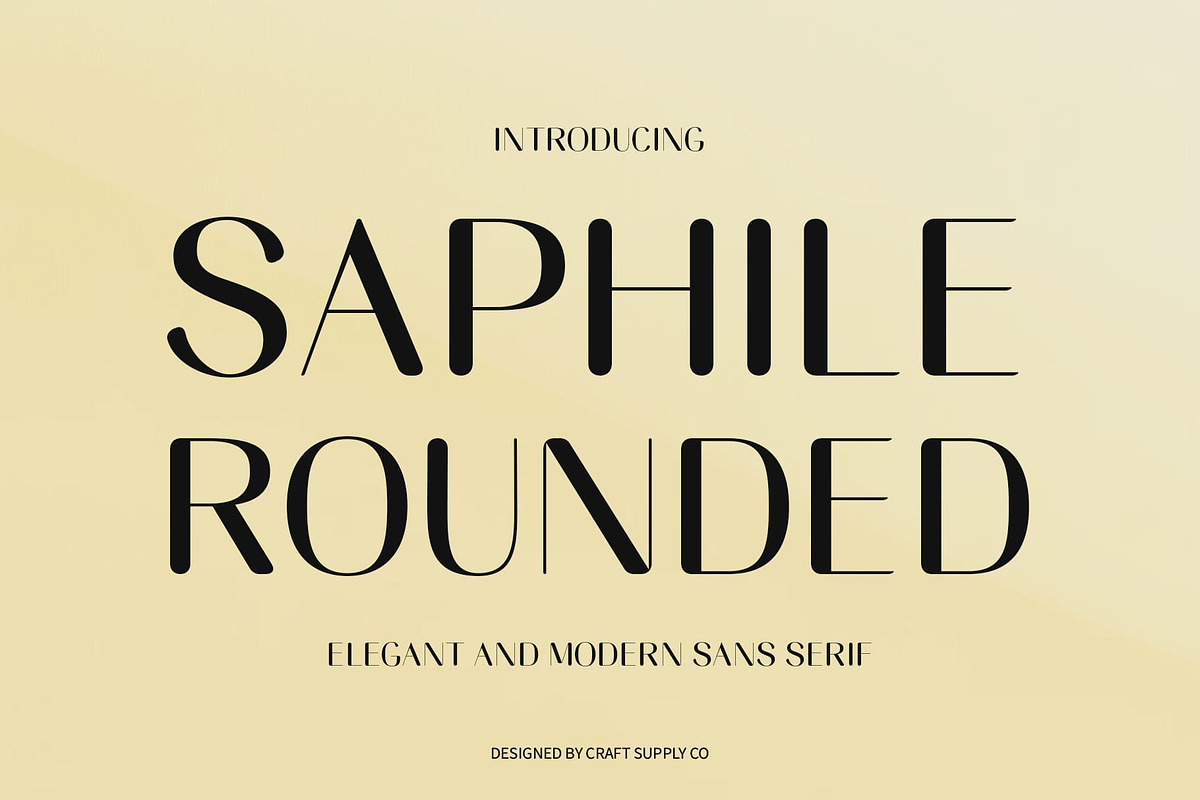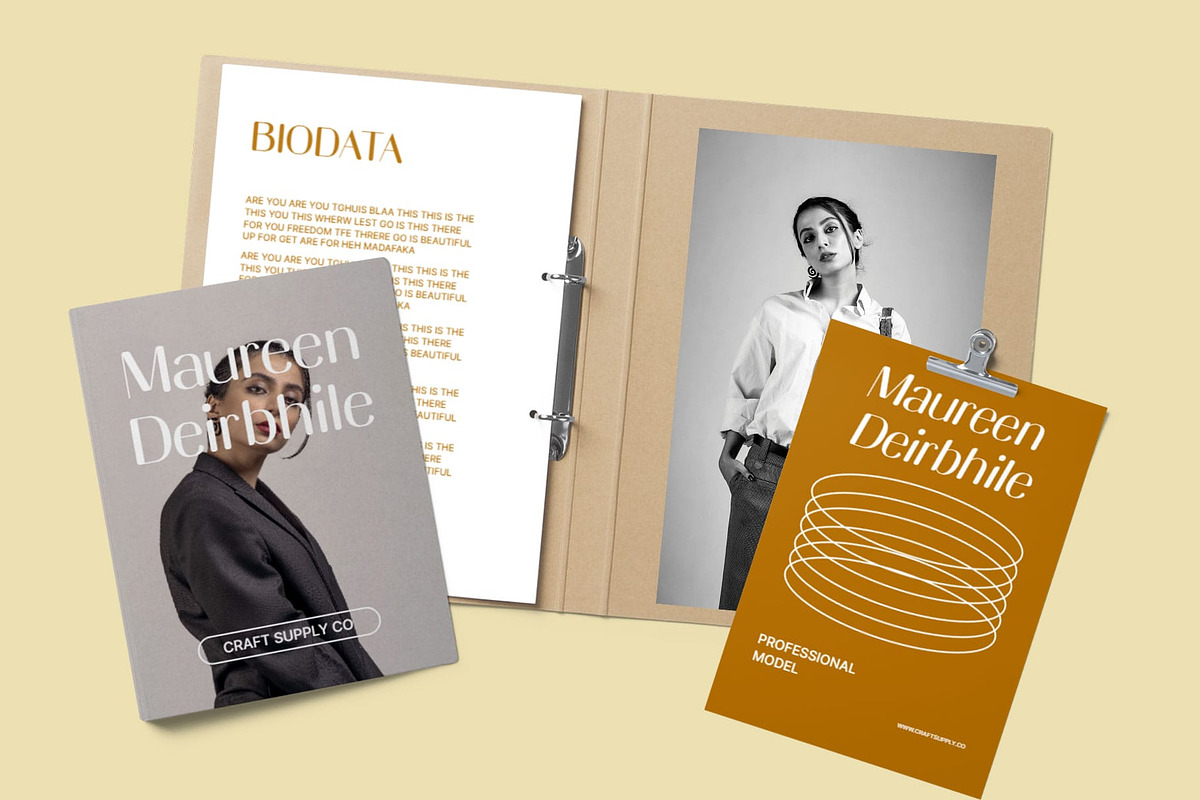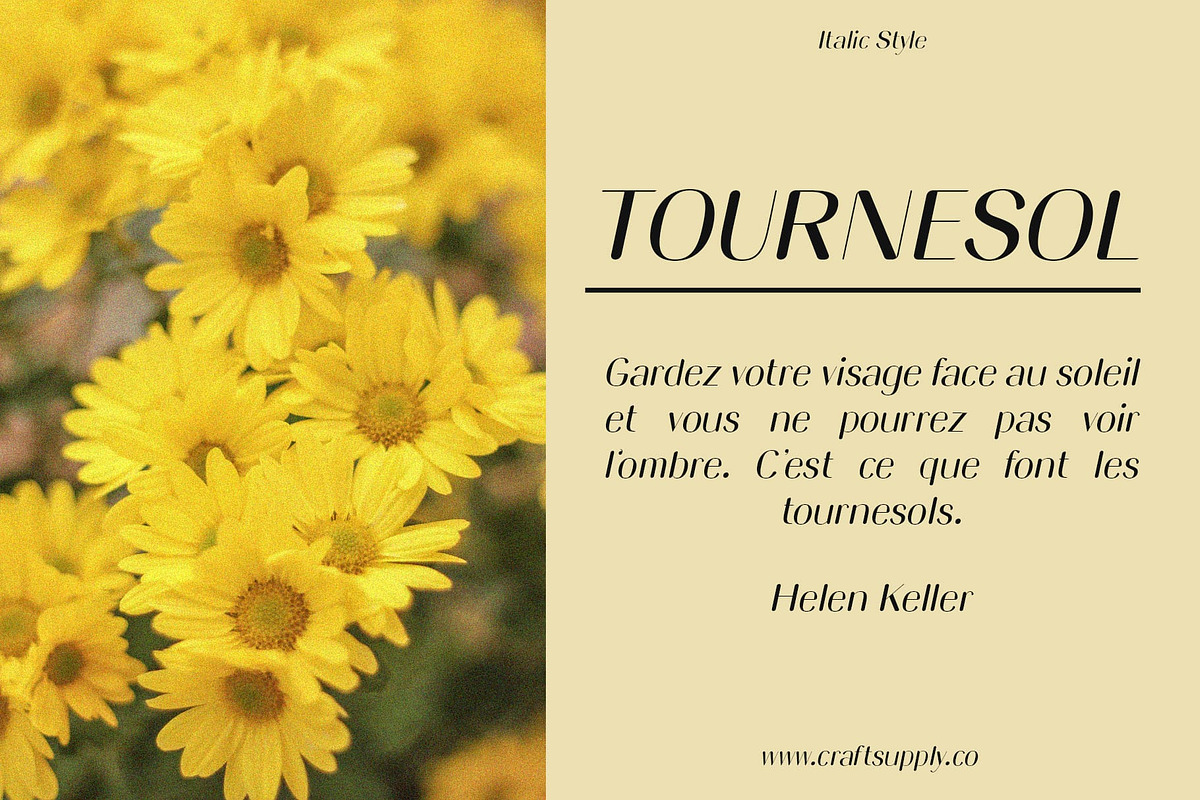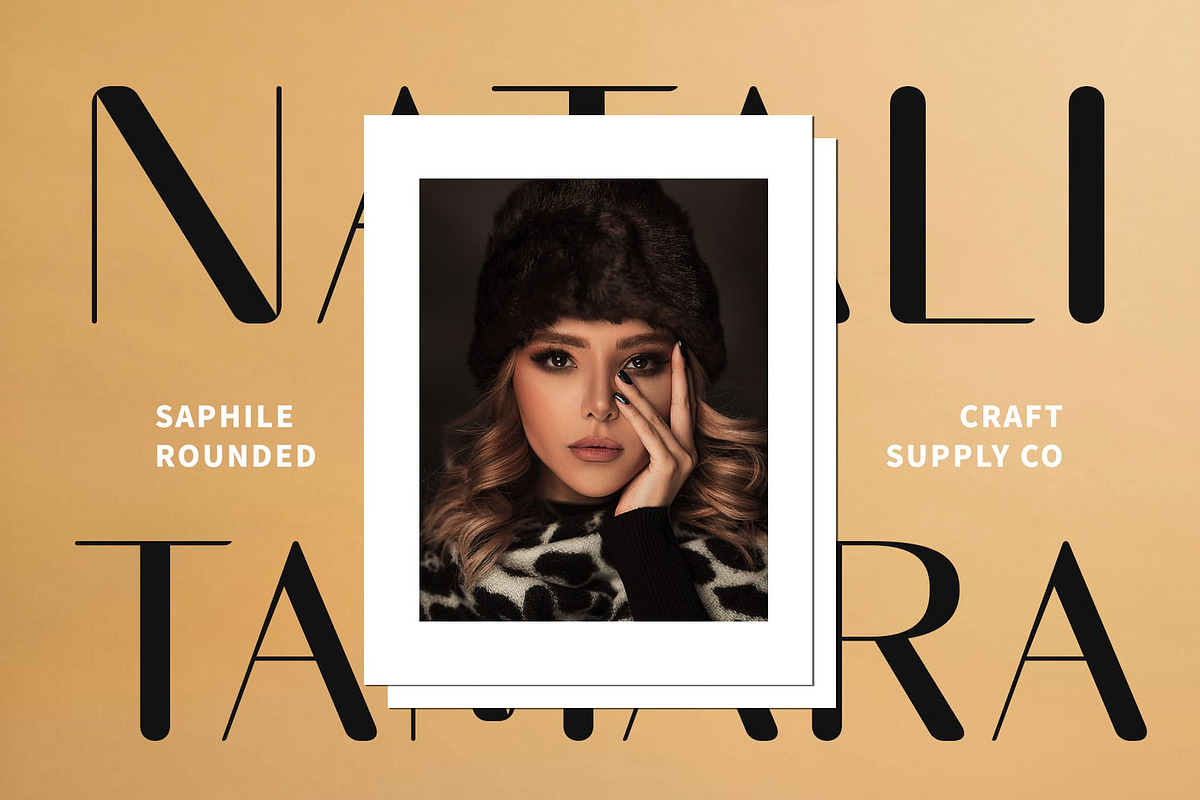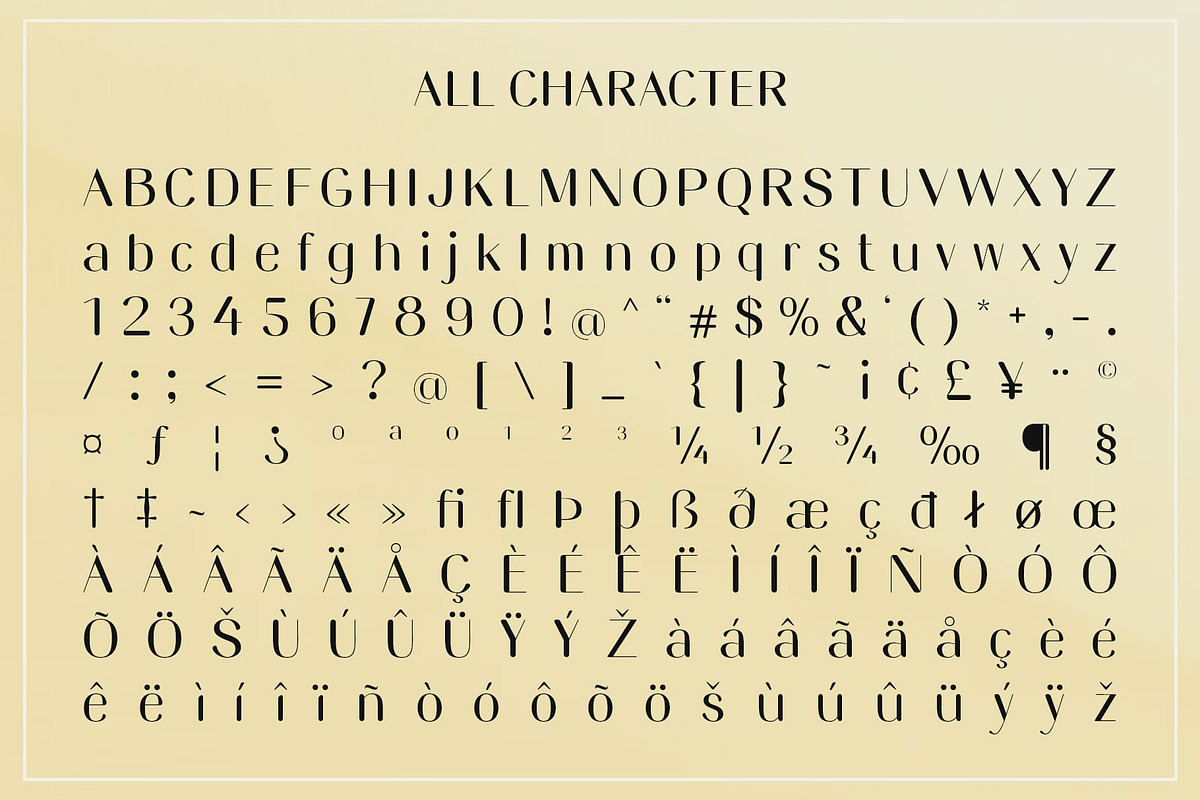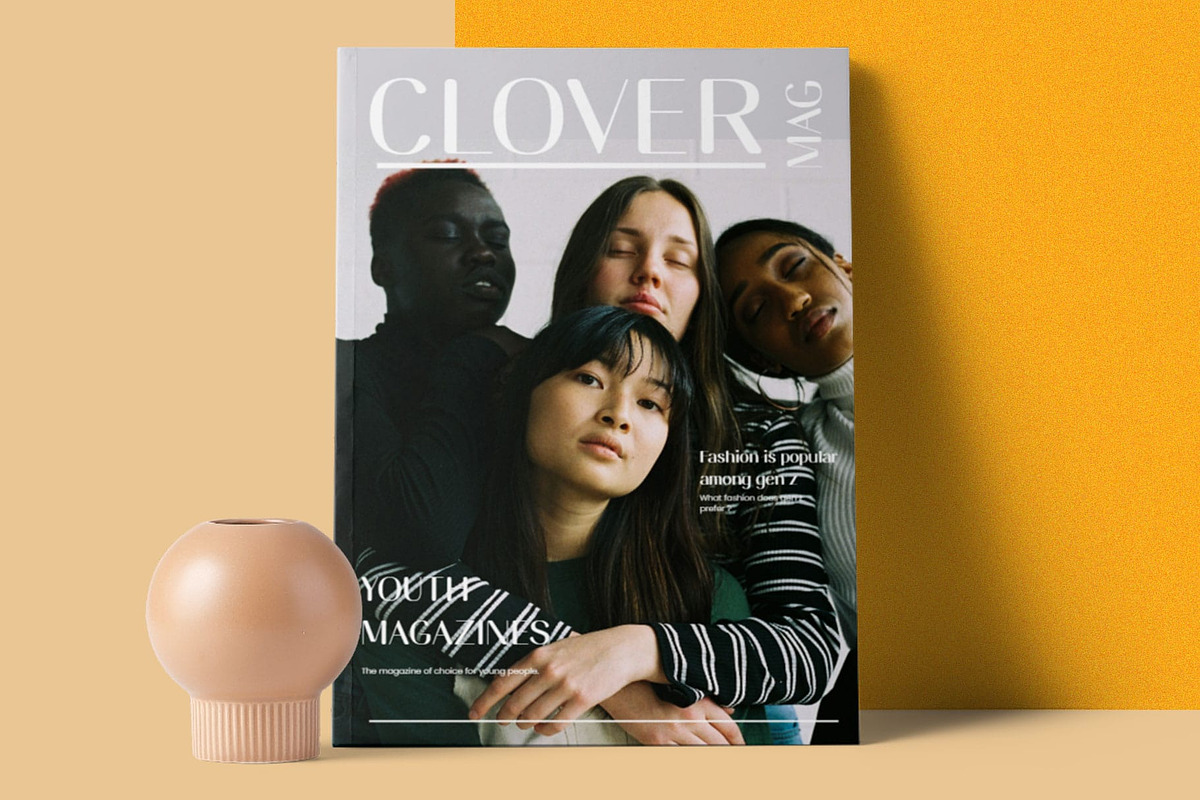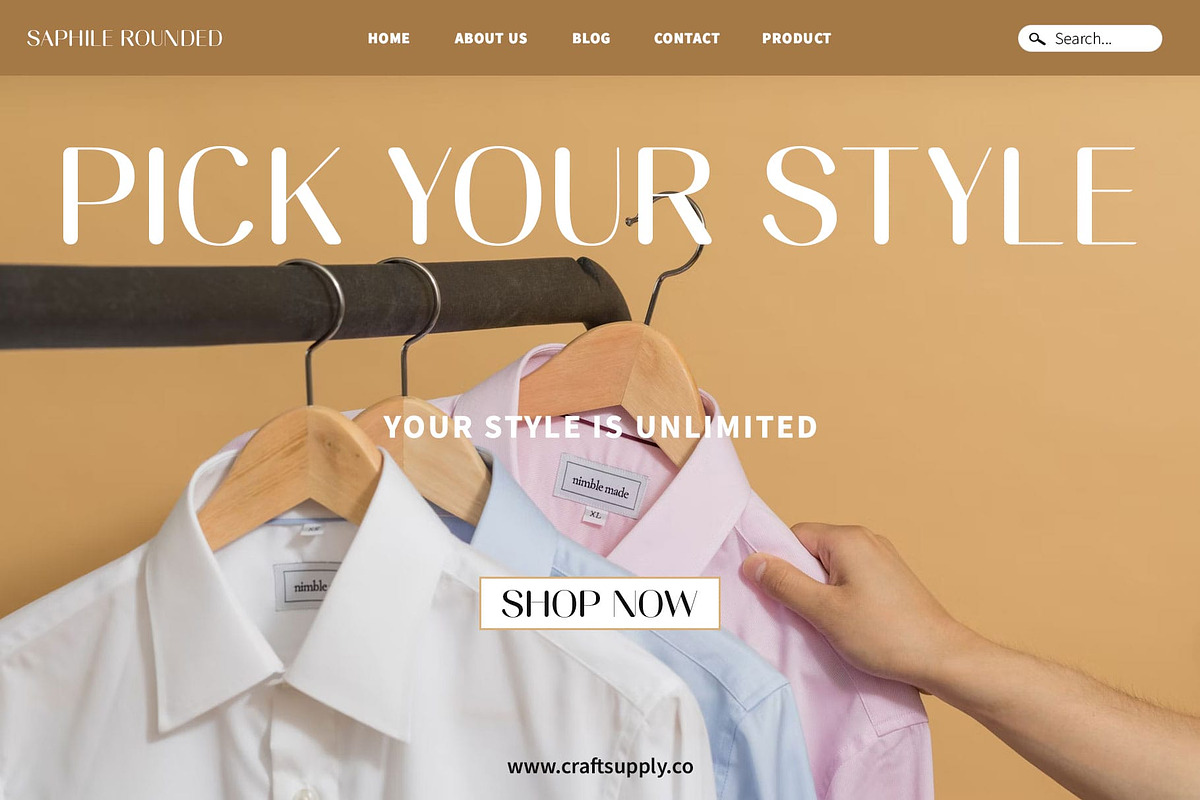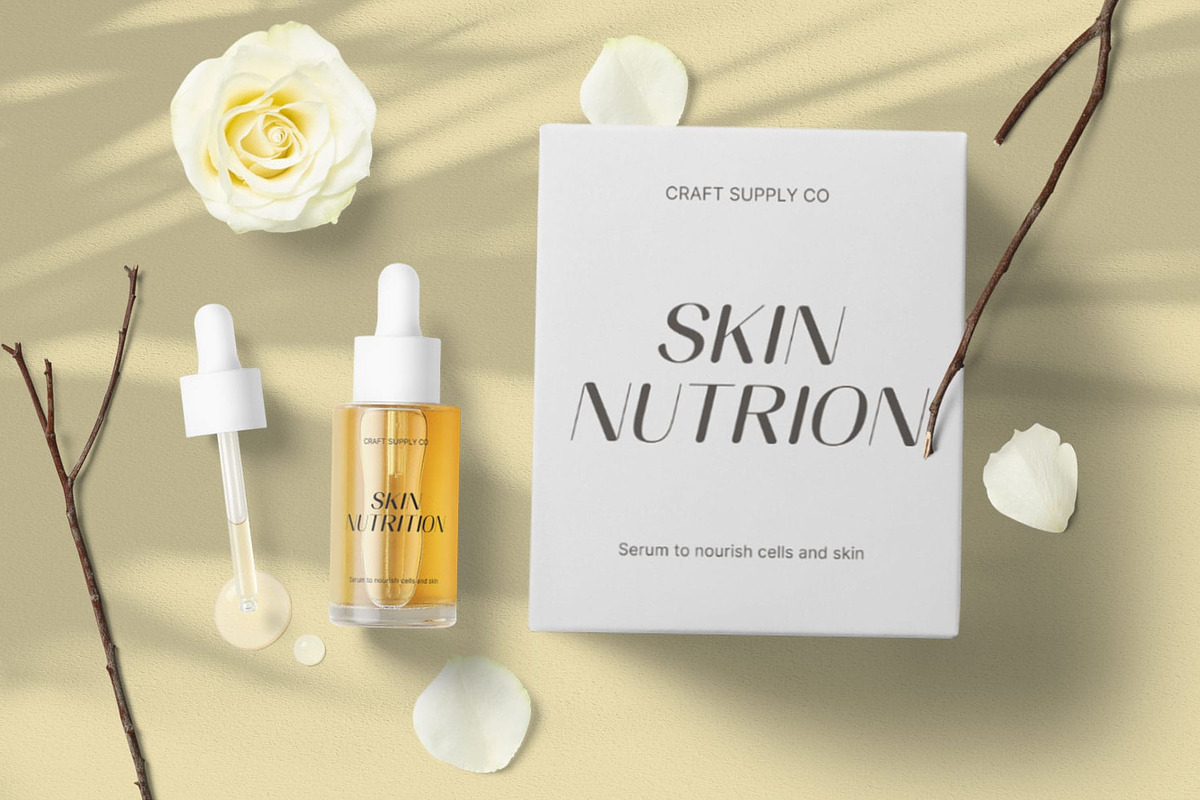
Saphile Rounded
Saphile Rounded: A Modern and Friendly Typeface
Vibrant and Contemporary Saphile Rounded exudes a vibrant and contemporary aura, thanks to its high contrast rounded sans serif style. This font captivates attention with its sleek lines and rounded edges, presenting a modern twist on traditional sans serif typography.
Friendly and Approachable The font’s rounded edges and high contrast imbue it with a friendly and approachable demeanor, perfect for creating connections with the audience. Whether used in headlines, body text, or branding elements, This font invites engagement and resonates with a wide range of audiences.
Versatile Application This font is versatile, suitable for various design applications, from branding and packaging to web design and social media graphics. Its adaptability makes it an excellent choice for designers seeking a font that can seamlessly integrate into diverse projects while maintaining its distinct personality.
Modern Elegance With its sleek lines and rounded corners, This font achieves a balance of modern elegance and playful charm, making it a standout choice for any design project. Whether conveying professionalism or adding a touch of whimsy, this font delivers sophistication with a dash of personality.
The Epitome of Modern Friendliness This font stands as a testament to modern design sensibilities, combining friendly vibes with contemporary flair. Its high contrast rounded sans serif style ensures versatility and visual appeal across diverse design applications, promising to elevate any project with its modern elegance and approachable demeanor.